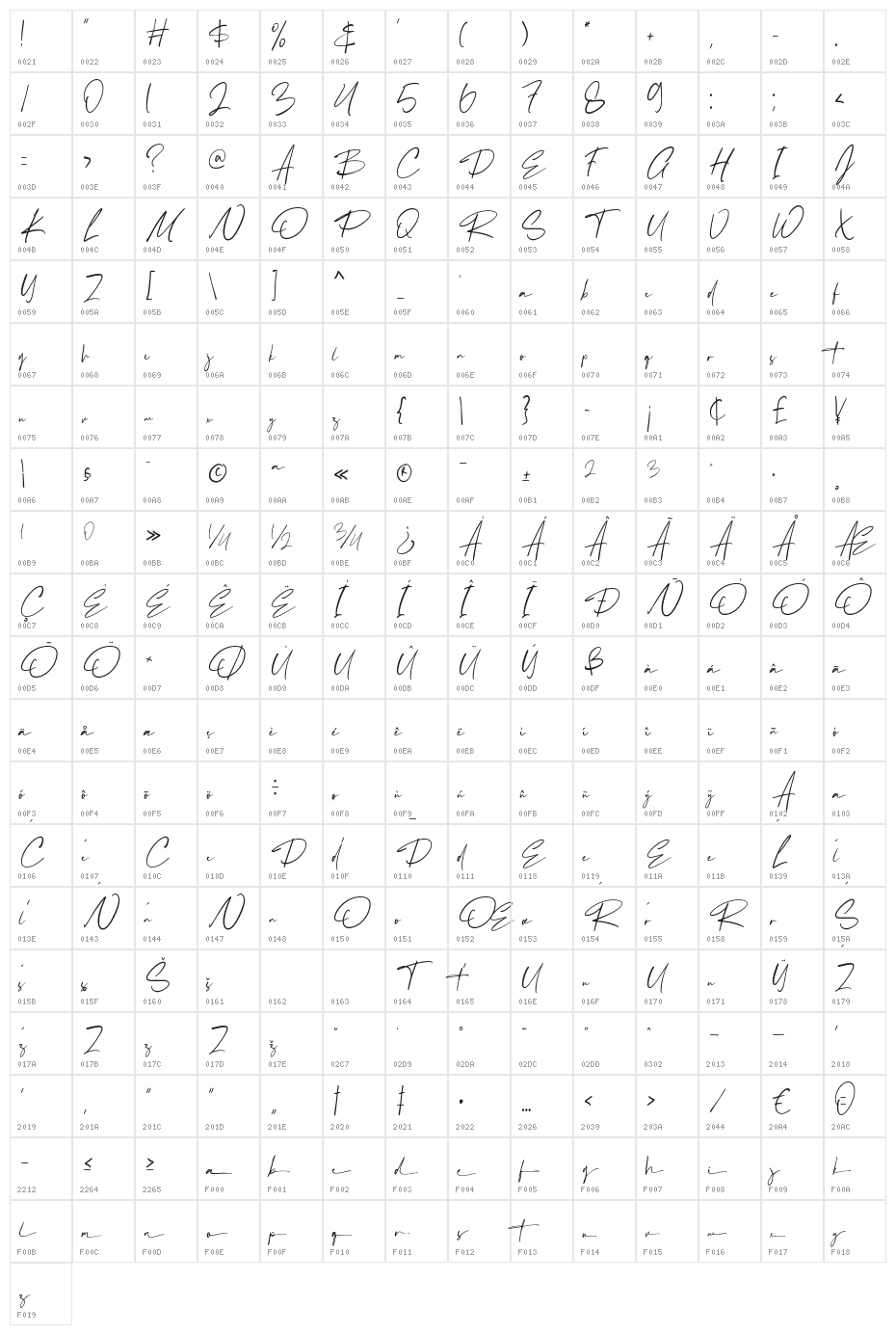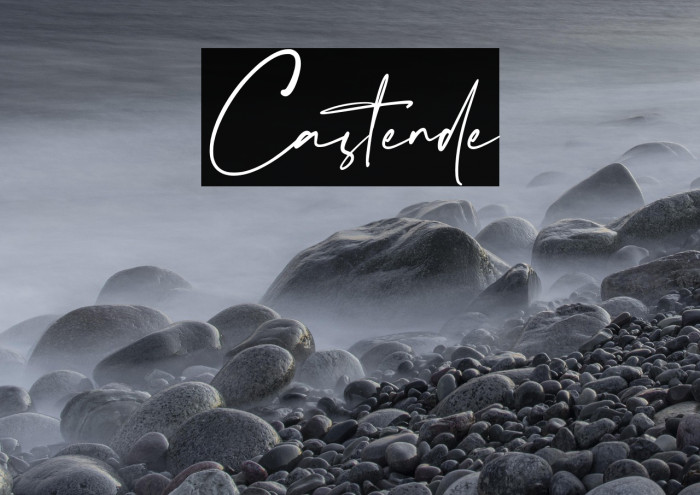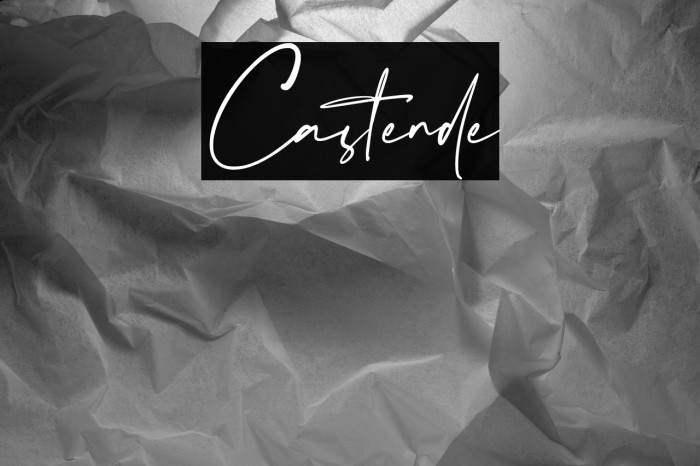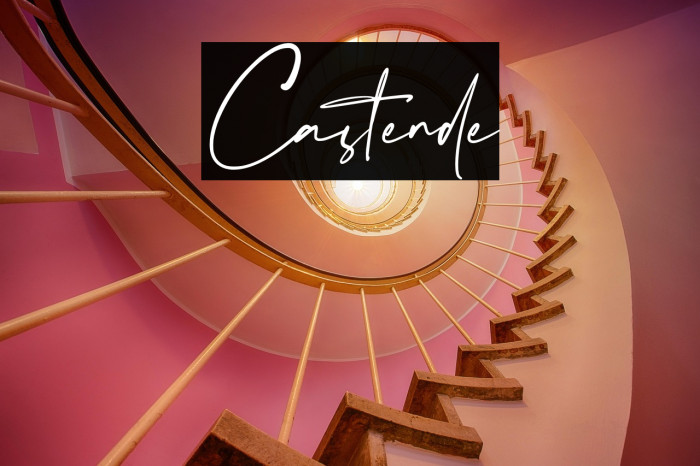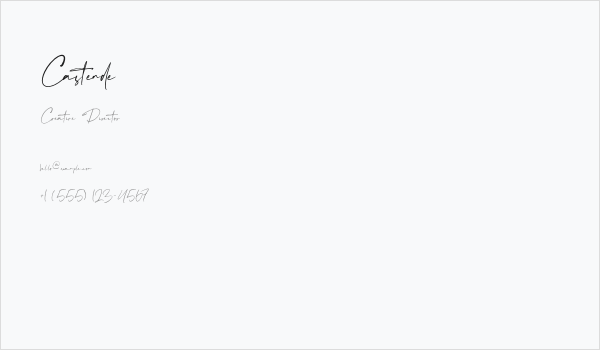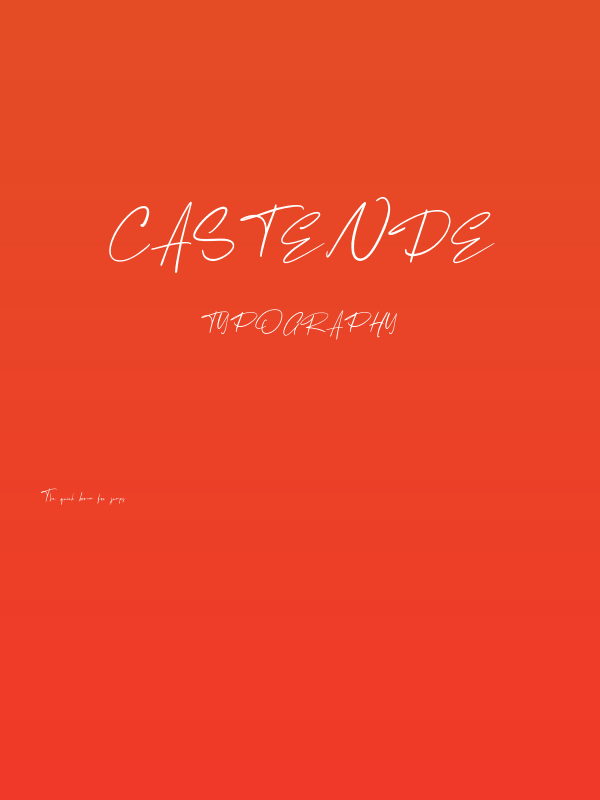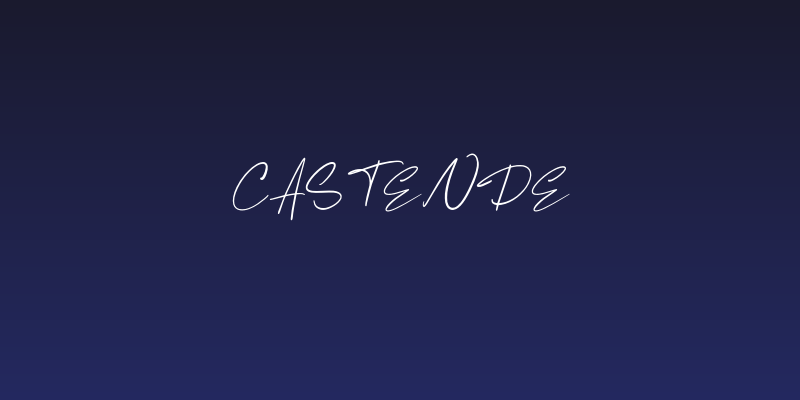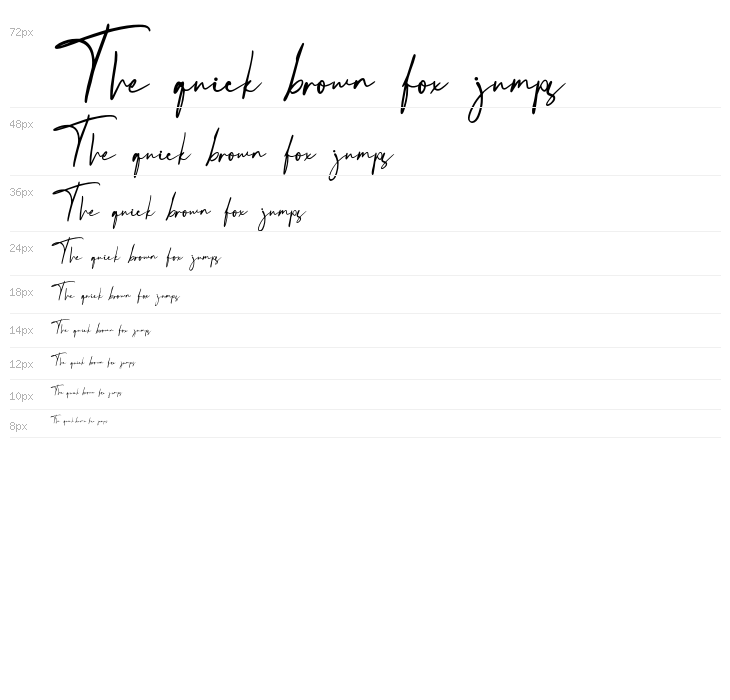
Castende Font
Castende Description
A flowing, cursive script font with a handwritten style, featuring smooth, connected strokes and a casual elegance.
| Use Case | Logos, Headlines, Invitations |
| Proposed Projects | Invitations, greeting cards, personal branding. |